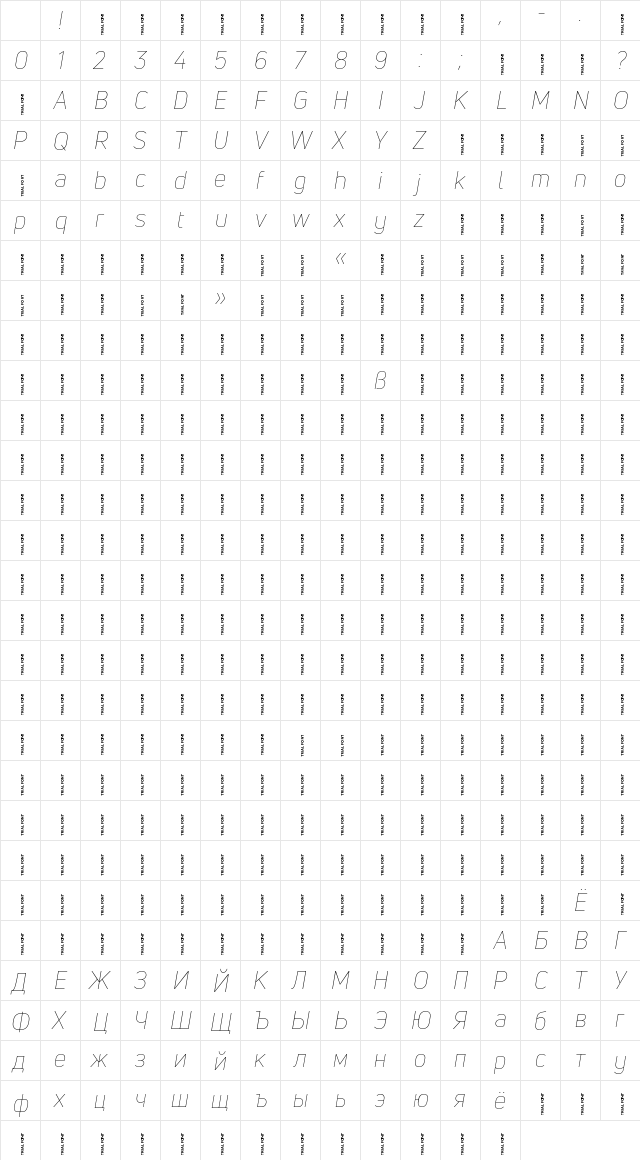
Complete Uni Neue-Trial Thin Italic glyph index. Displaying only characters natively supported by Uni Neue-Trial Thin Italic font.
Uni Neue-Trial is a composed and adaptable typeface that performs quietly and consistently across a wide range of design contexts. The slanted form adds forward momentum and visual energy. Its slender proportions lend an understated elegance to any composition.